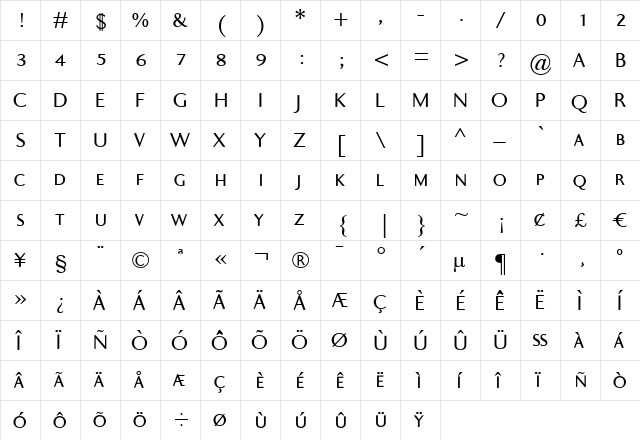
Ela Sans Plain Caps Regular
Design Context for Ela Sans Plain Caps Typeface
Ela Sans Plain Caps takes a measured approach to typography — its balanced proportions and neutral character make it a reliable workhorse for both digital and print work.
Pro Tip: Use Ela Sans Plain Caps in both headline and body roles to test its range before committing to a single application.